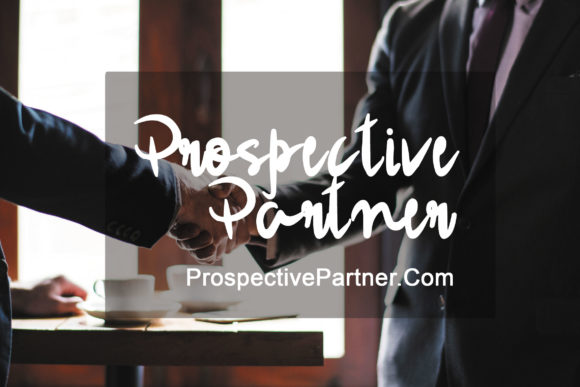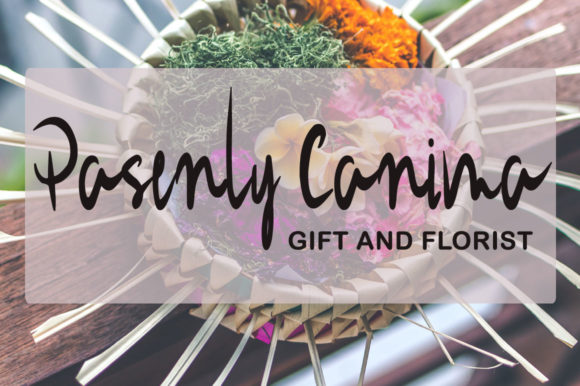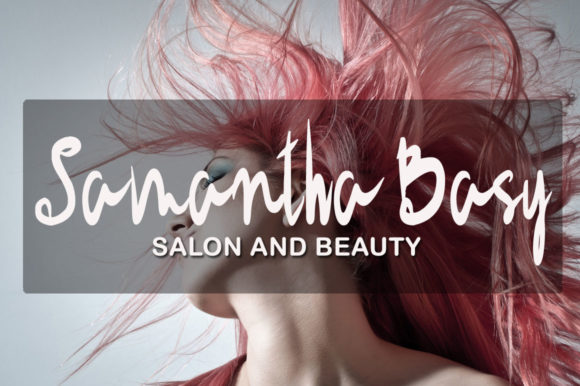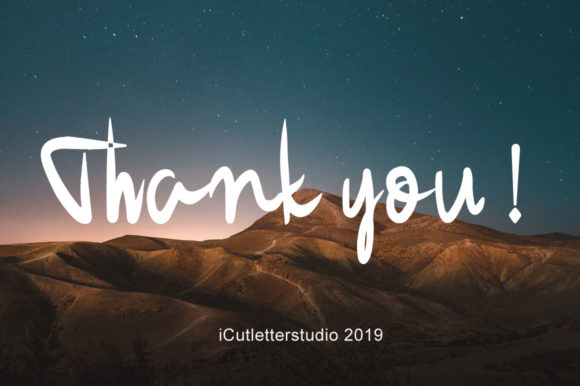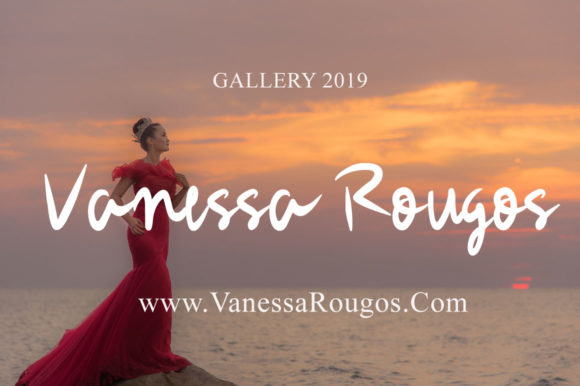
Introducing Calon Biny Font: Elevate Your Designs with Elegance and Sophistication
In the world of typography, a well-crafted font can make all the difference in elevating your design to the next level. If you’re a designer, crafter, or simply someone who appreciates the art of beautiful writing, you’re in luck. Say hello to Calon Biny Font, a modern handwritten font that exudes elegance, sophistication, and a touch of playfulness.
A Modern Handwritten Font with a Timeless Appeal
Calon Biny Font is a versatile and modern handwritten font that has been carefully crafted to add a touch of refinement to your designs. Its elegant, yet striking look makes it perfect for a wide range of applications, from signatures and logos to headers, blogs, posters, branding, letters, invitations, and much more.
Whether you’re working on a personal project or a client’s commission, Calon Biny Font is the perfect choice for anyone looking to add a dash of sophistication and style to their work. Its unique blend of classic and modern elements makes it an excellent addition to any designer’s toolkit.
What Makes Calon Biny Font So Special?
So, what sets Calon Biny Font apart from other fonts on the market? Here are just a few reasons why designers and crafters are falling in love with this beautiful font:
- Elegant and Refined: Calon Biny Font boasts an elegant, refined look that’s perfect for designs that require a touch of sophistication.
- Versatile: From signatures and logos to headers and posters, Calon Biny Font can be used for a wide range of design applications.
- Modern and Fresh: With its modern handwritten style, Calon Biny Font adds a fresh and contemporary feel to any design.
- Easy to Read: Despite its elegant look, Calon Biny Font is incredibly easy to read, making it perfect for body text and other applications where legibility is key.
How to Use Calon Biny Font in Your Designs
Calon Biny Font is incredibly versatile, and can be used in a variety of design applications. Here are just a few ideas to get you started:
- Signatures and Logos: Add a touch of elegance to your signatures and logos with Calon Biny Font.
- Headers and Titles: Use Calon Biny Font to add a touch of sophistication to your headers and titles.
- Posters and Flyers: Create eye-catching posters and flyers with Calon Biny Font.
- Branding and Packaging: Use Calon Biny Font to add a touch of elegance to your branding and packaging designs.
- Invitations and Stationery: Create beautiful invitations and stationery with Calon Biny Font.
Why Designers and Crafters Love Calon Biny Font
So, why are designers and crafters raving about Calon Biny Font? Here are just a few reasons:
- Unique and Exclusive: Calon Biny Font is a unique and exclusive font that’s sure to make your designs stand out from the crowd.
- High-Quality: With its high-quality design and construction, Calon Biny Font is a font that will elevate your designs to the next level.
- Easy to Use: Calon Biny Font is incredibly easy to use, making it perfect for designers and crafters of all skill levels.
- Constantly Updated: The creators of Calon Biny Font are committed to constantly updating and improving the font, ensuring that it stays relevant and fresh.